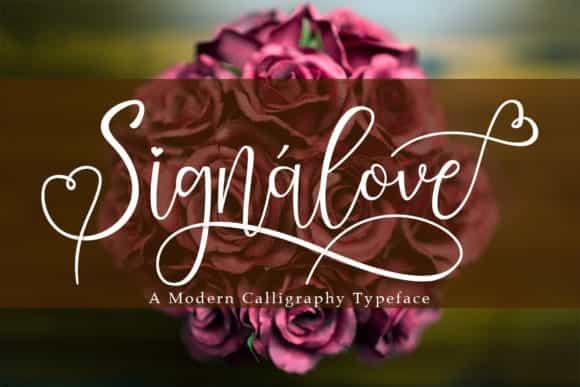
Signalove Font is a good looking modern calligraphy script with an unusual letter style, which was naturally drawn by hand. It is a tender and smooth tone which slightly links all the characters together. Signalove Font is an excellent choice for weddings, invitations, greeting cards, quotations, posters, branding, business cards; stationary and title design of a blog or any other art.